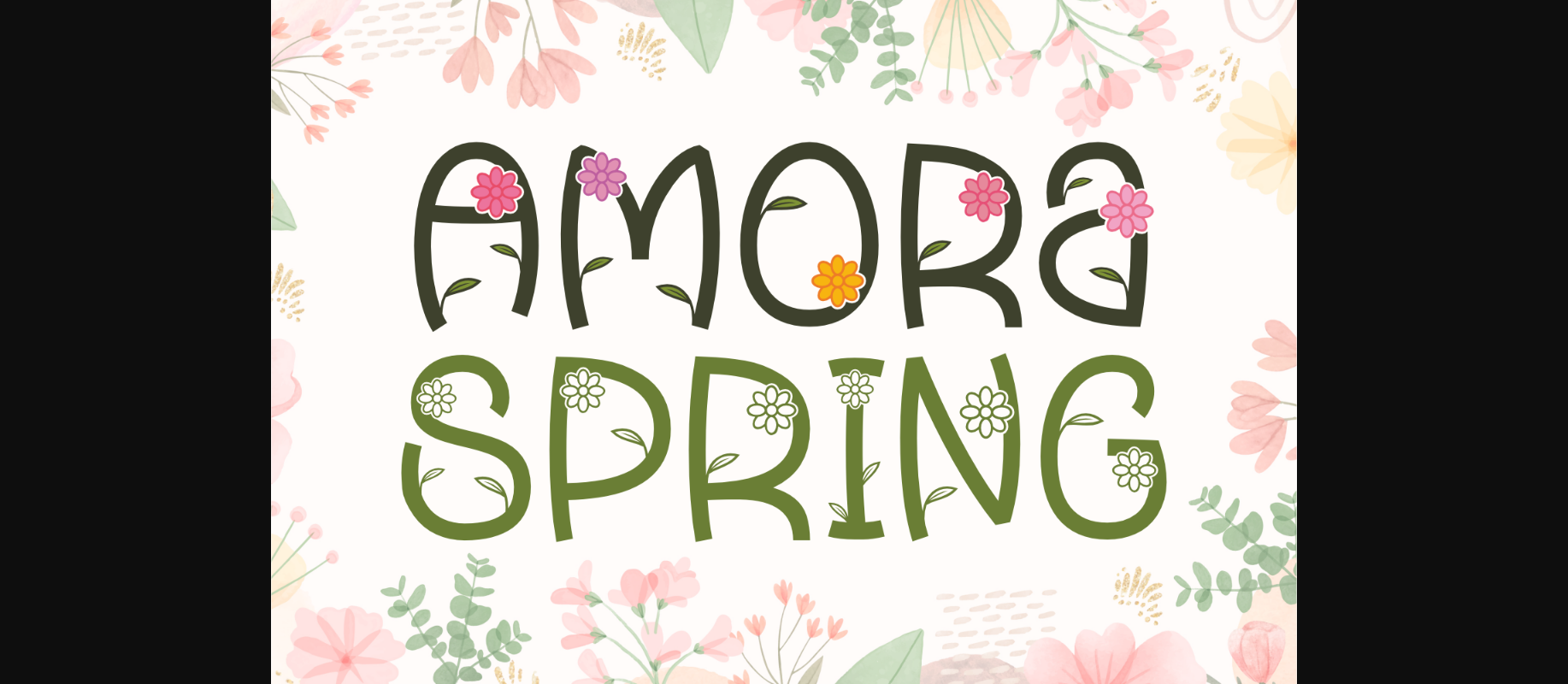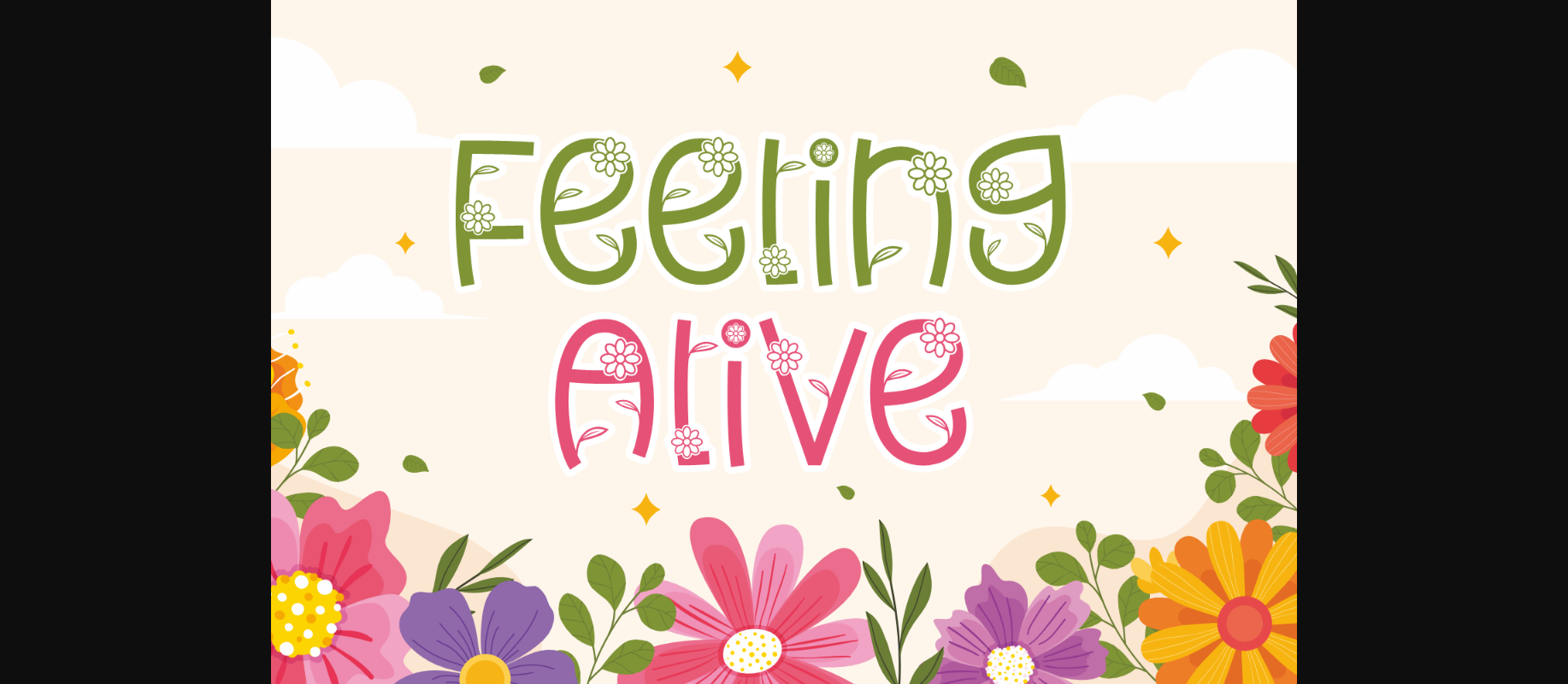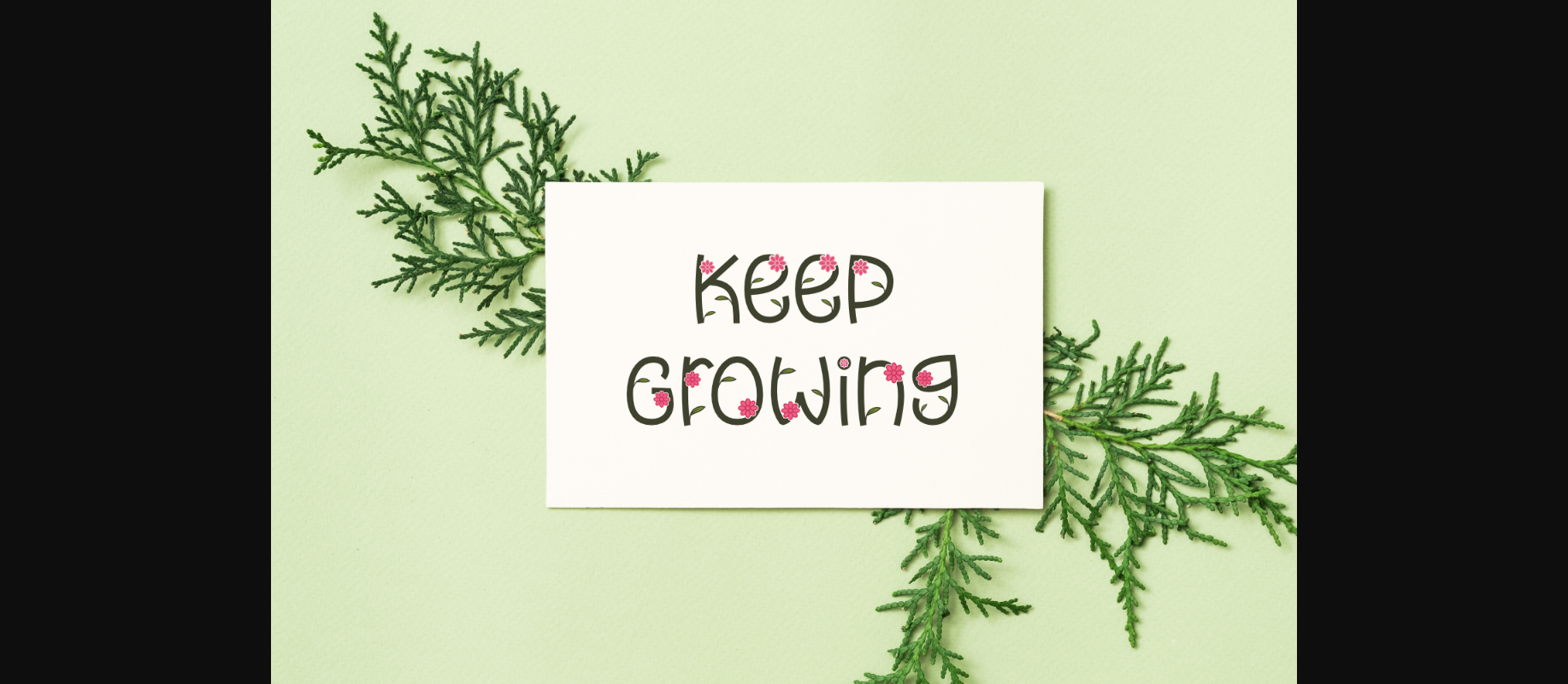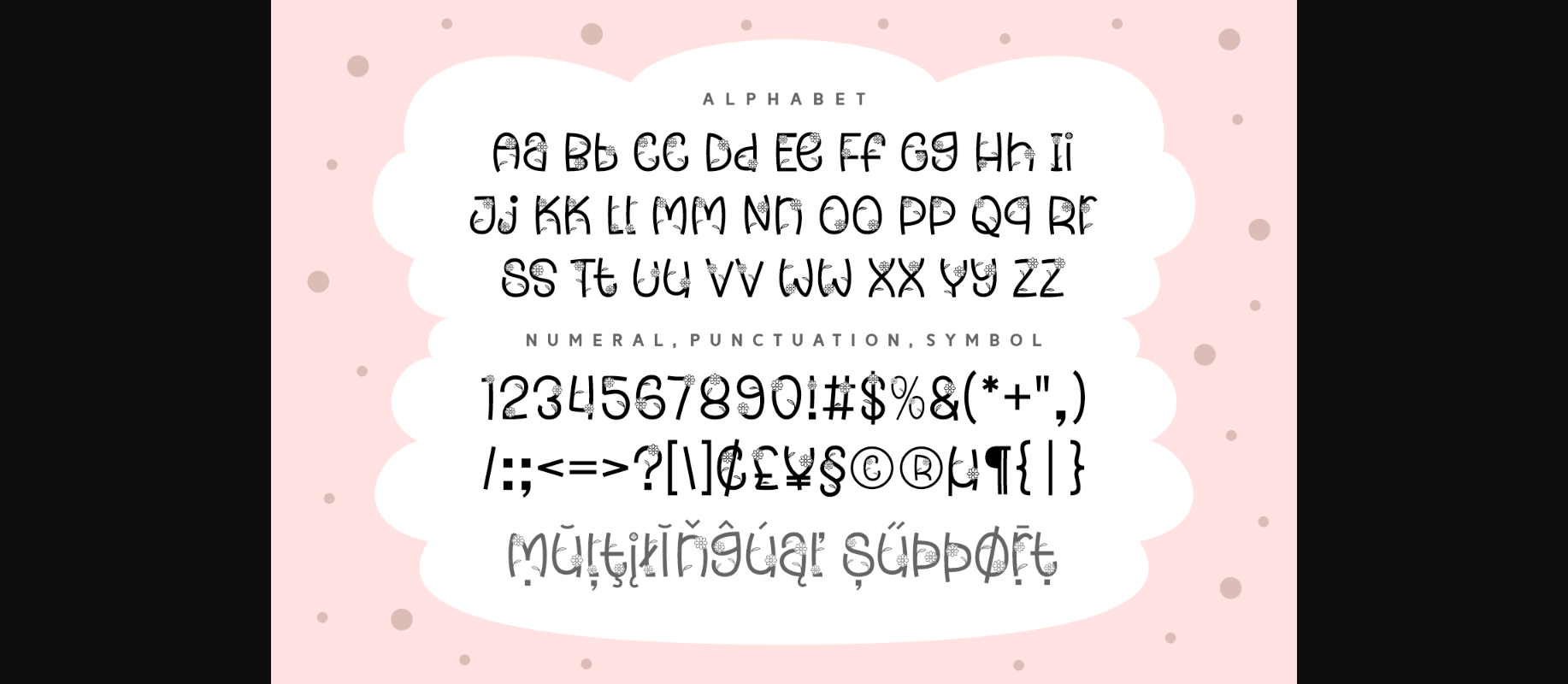
Amora Spring Font
About Amora Spring Font
Amora Spring is a delightful decorative font adorned with petite flowers. Its whimsical charm adds a touch of nature to your text, making it perfect for projects that seek a fresh and playful vibe. Bring a springtime feel to your designs effortlessly with this font, as it gracefully weaves a floral touch into every letter. Ideal for invitations, cards, or any creative endeavor where a hint of blooming beauty is desired. Embrace the enchanting simplicity of Amora Spring for a truly blossoming visual experience.